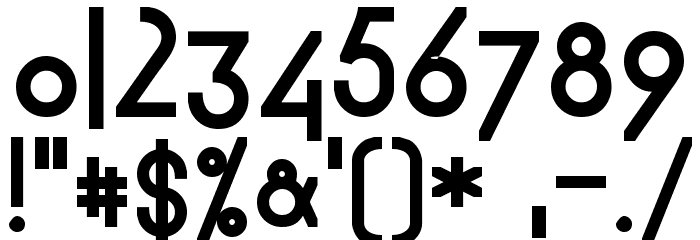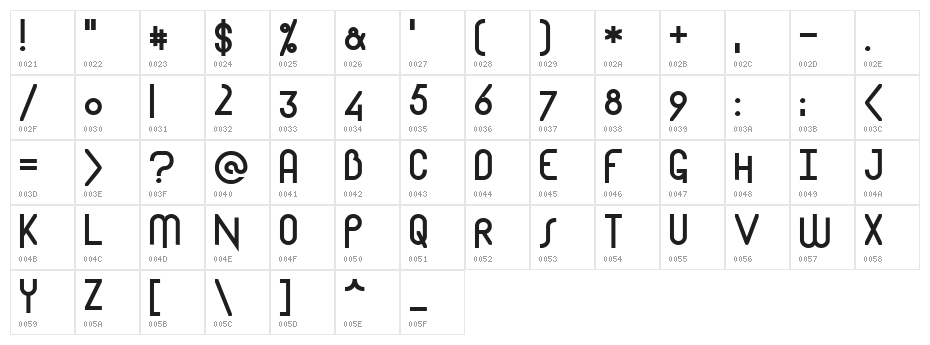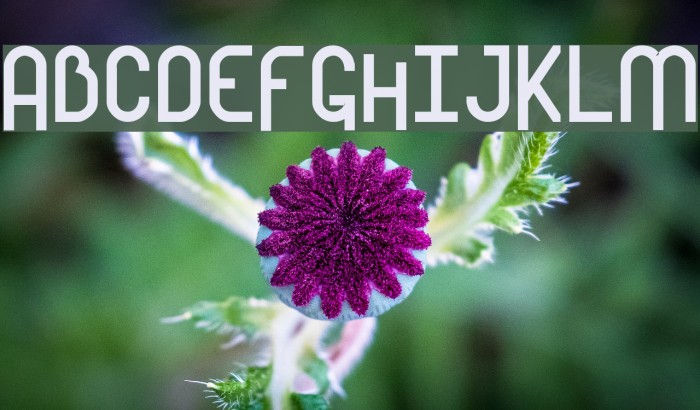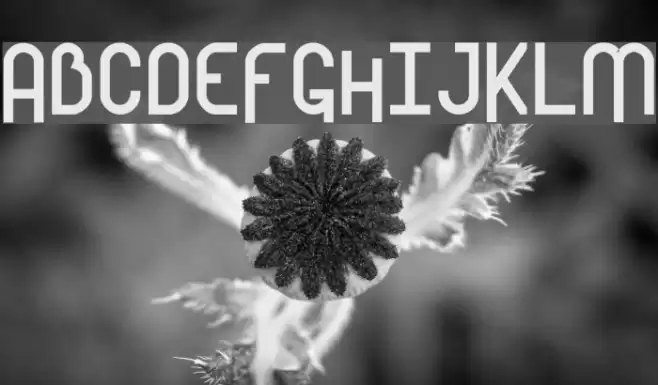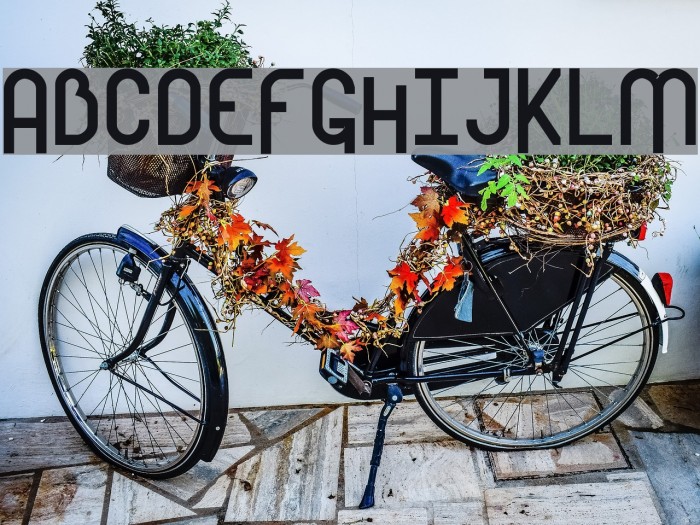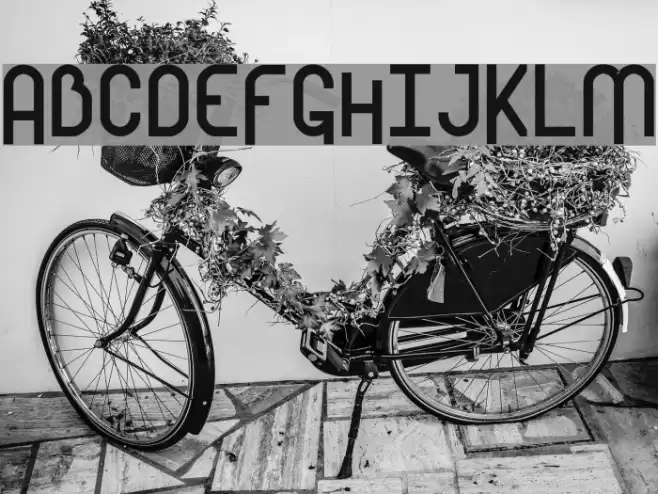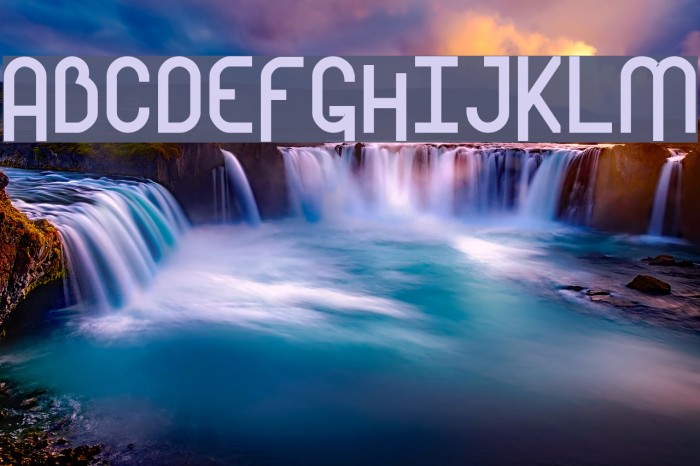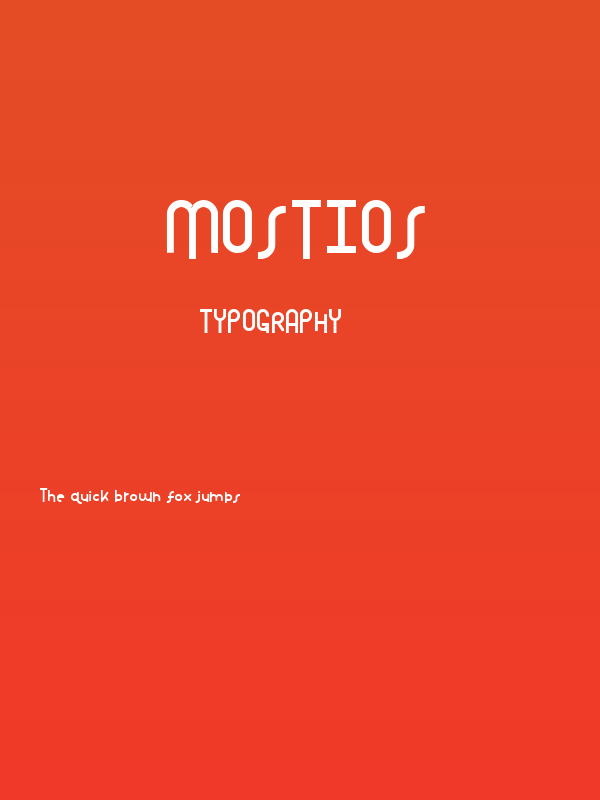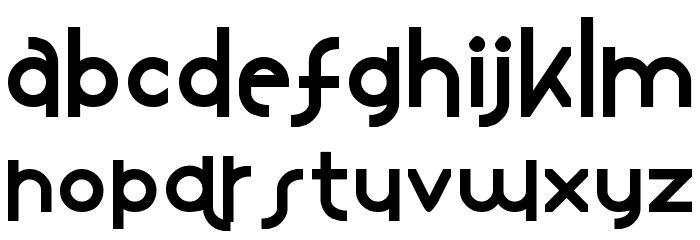
Mostios Font
Mostios Description
This font features a modern and geometric design with a unique blend of sharp angles and smooth curves. The uppercase letters are characterized by their bold, structured appearance, while the lowercase letters maintain a consistent roundness that adds a touch of softness. The numerals are distinct and easily readable, with a uniform thickness that complements the overall style. Special characters are crafted with precision, maintaining the font's cohesive look. The font's clean lines and balanced proportions make it versatile for various design applications.